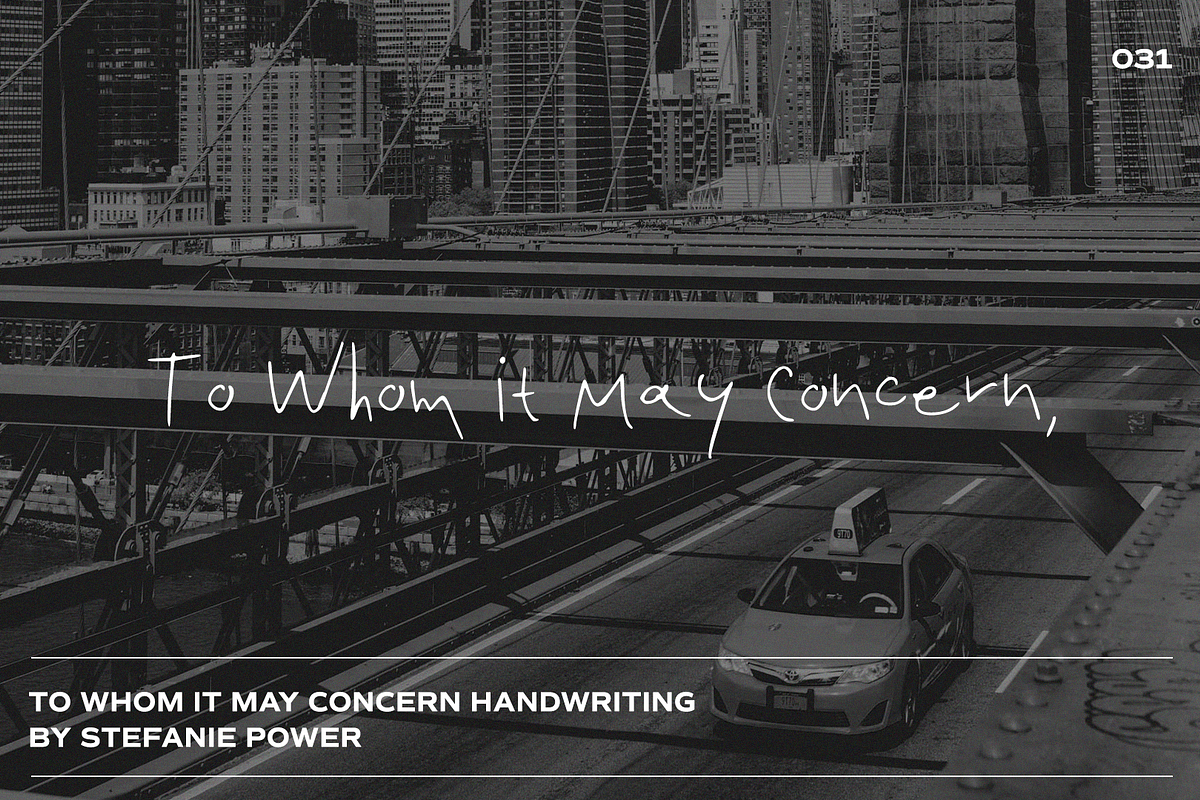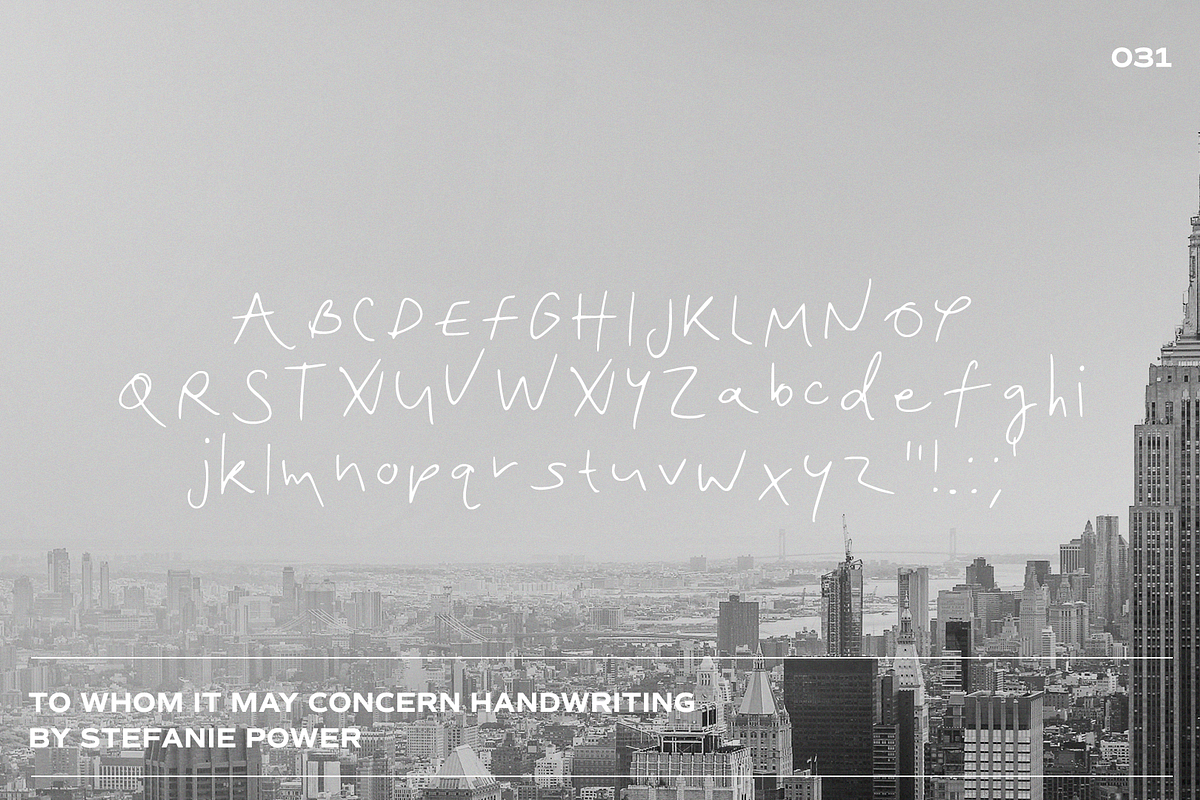
To Whom it May Concern | Font
Introducing 'To Whom it May Concern' - a beautiful messy font.
To Whom it May Concern • A handwritten font containing upper & lowercase characters and a range of punctuation and numbers.